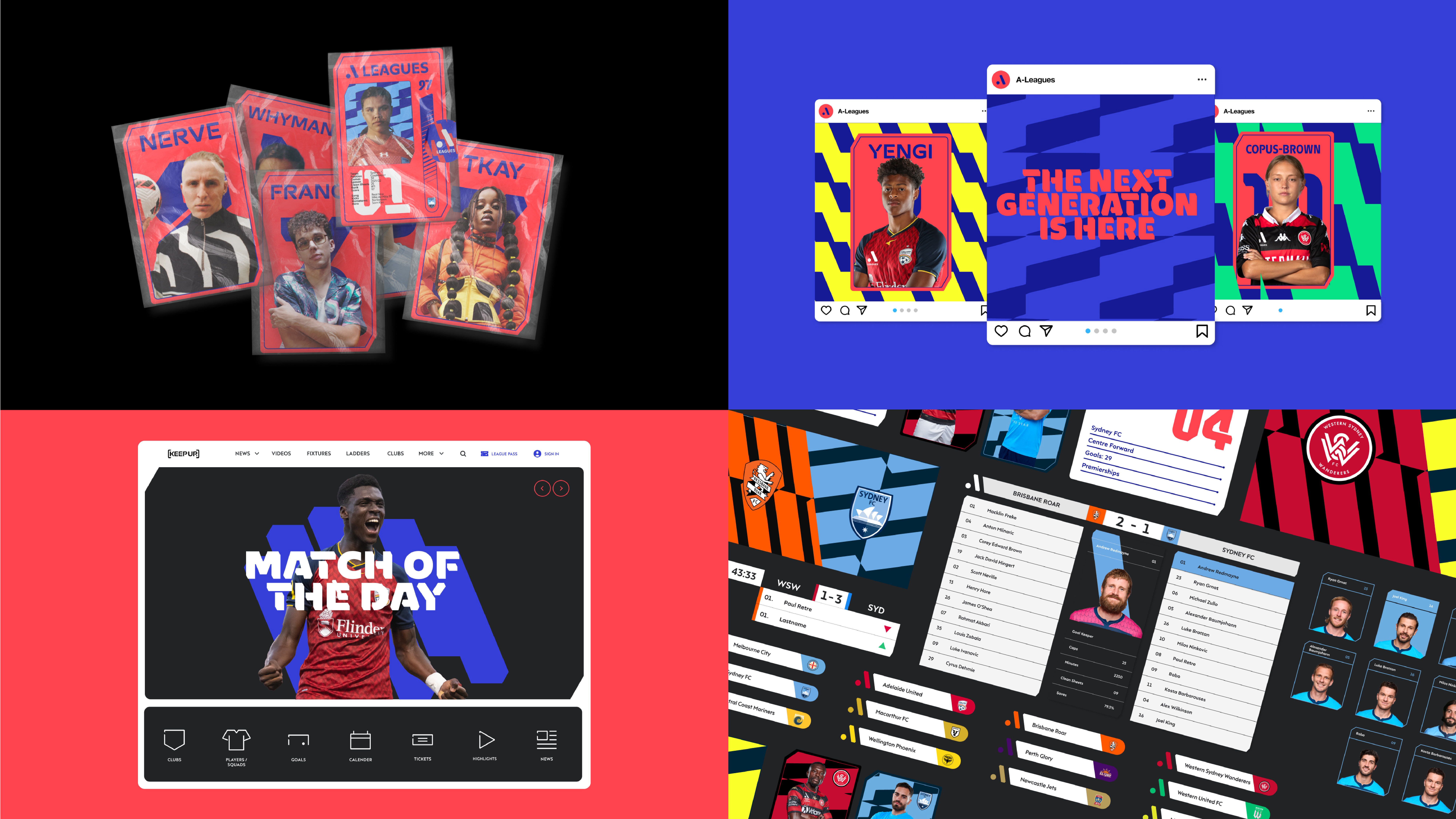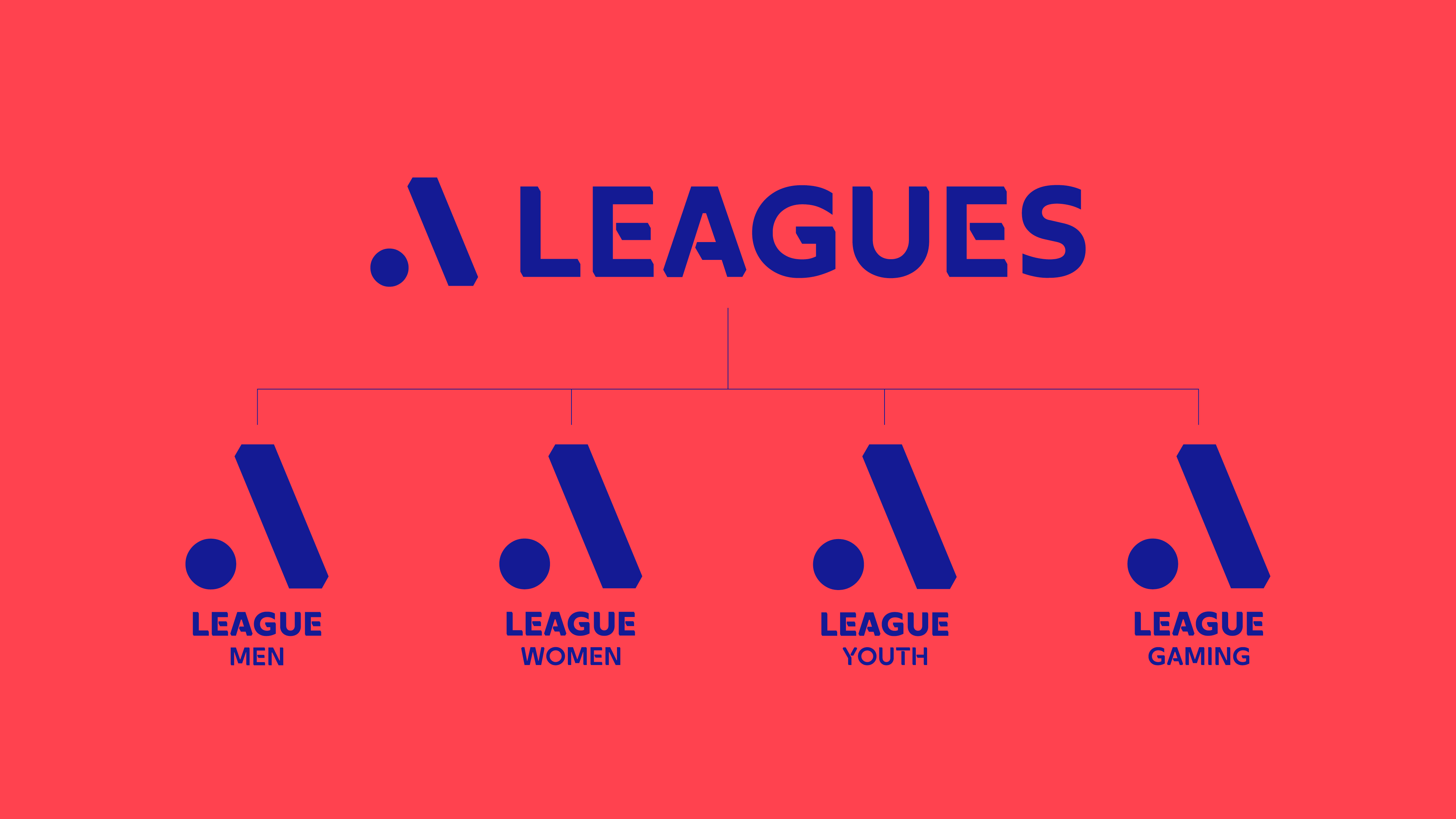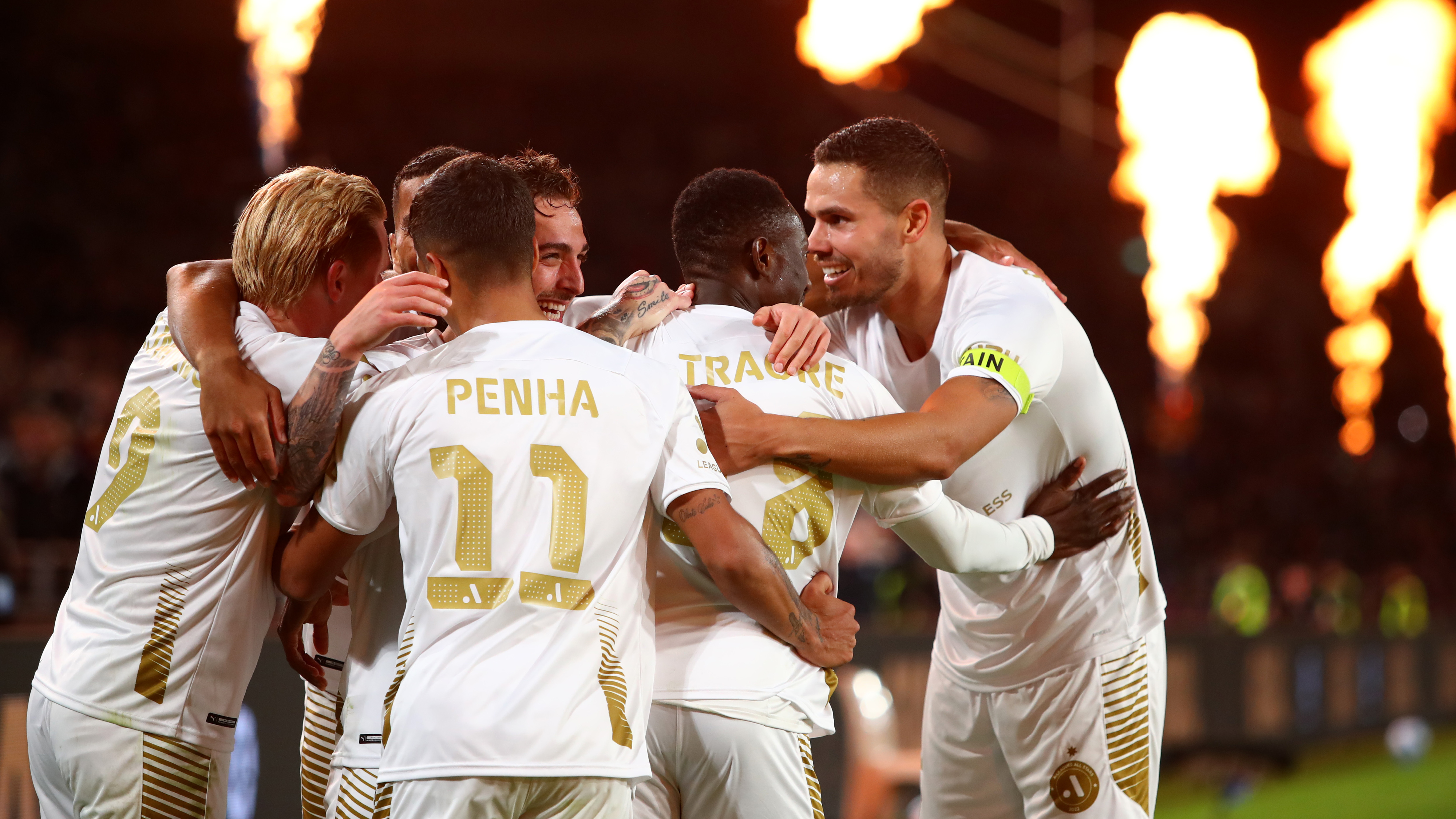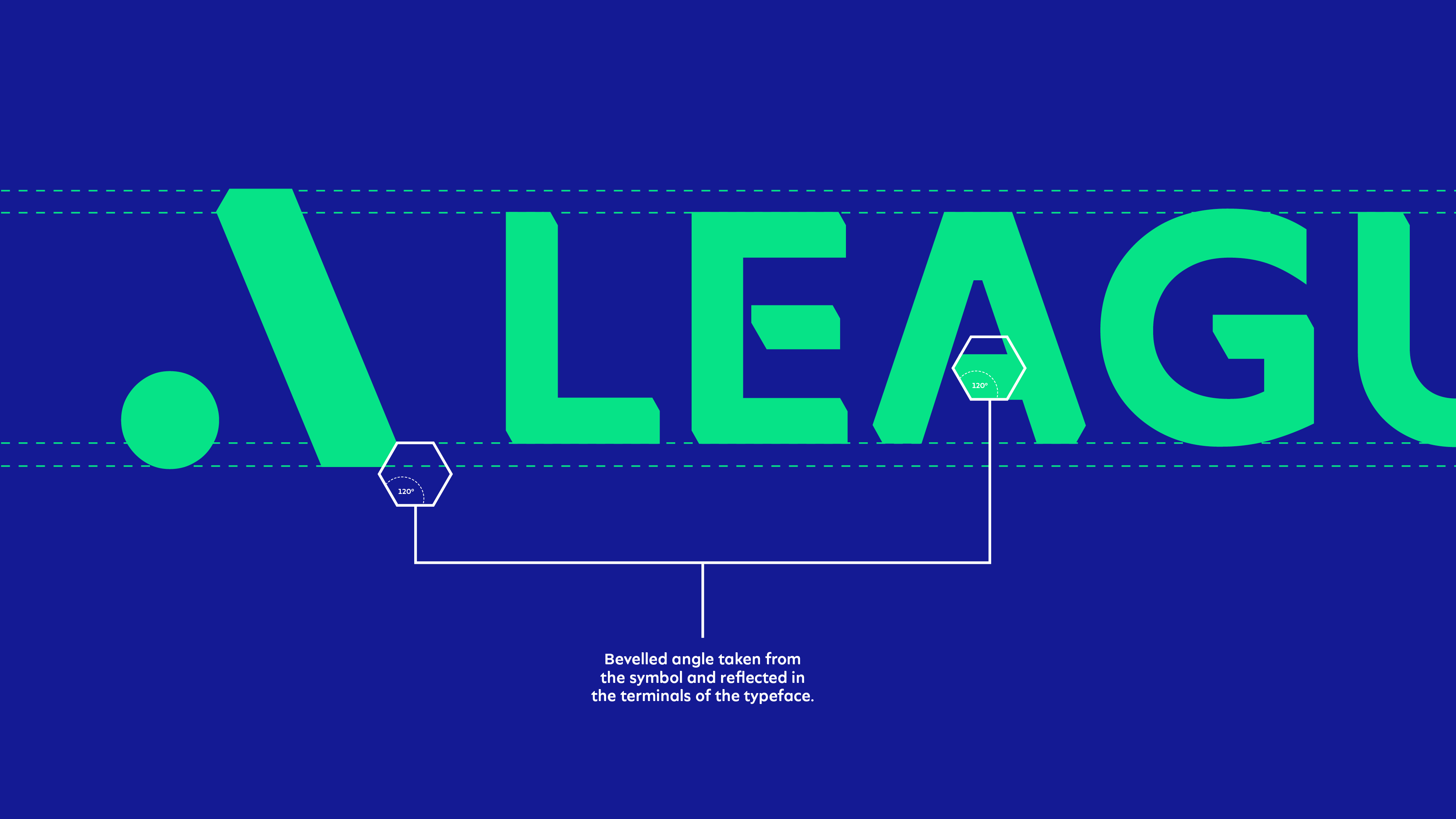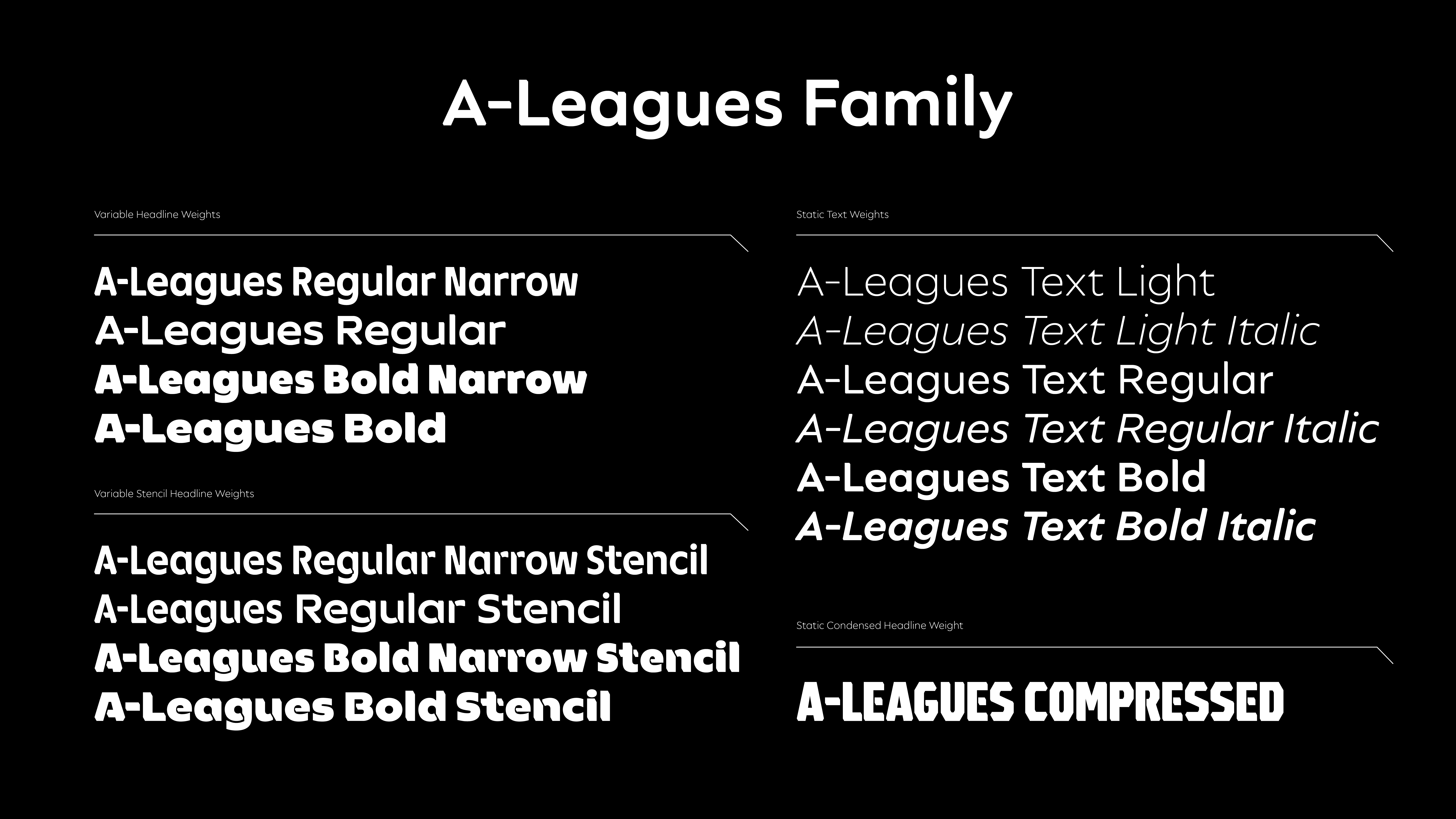
A-Leagues
Football in Australia is changing. Alongside R/GA Australia, we designed a suitably striking new font family for the innovative, all-inclusive A-Leagues.
Our ambition was to create a typeface that would act as an open invitation to all players, clubs and fans to play their own way. From home ground to playground, F37 delivered a type family that can flex both on and off the pitch, blending football and culture with a uniquely welcoming and passionate tone. F37’s knowledge for both football and typography made for an inspiring partnership that has amplified the A-Leagues values across Australia.
A-LEAGUES LOGO FAMILY
TYPE ANATOMY
Background
The A-Leagues represent the pinnacle of professional football in Australia. It’s the first league in the world to combine men's, women's, youth and e-sports competitions under one banner. It aims to make elite football the most popular sport in the country.
After the A-Leagues broke away from Football Australia in 2021, they were rebranded by R/GA Australia. As part of their box-fresh new kit, R/GA commissioned us to create custom lettering to match their new dynamic symbol.
Initially, we were asked to develop some type for the A-Leagues family of logos. However, the value of creating a full font family soon became apparent, so we put our boots on to create a hard-working and versatile typeface.
MERCHANDISE
A-LEAGUES HEADLINE STENCIL BOLD
Delivery
We used the 120° angle of the hexagon shape, often found on footballs and R/GA's new symbol as a starting point to create the A-Leagues font family. It’s a super font family with a wide variety of weights and styles.
Angular and dramatic, it looks gutsy and passionate in bold, yet beautiful and sophisticated in lighter weights. The small cuts and angled terminals play with your eyes, giving you the impression that the letters have been rendered in 3D. A-Leagues Text takes the core forms of the display styles and pairs them back as to not distract or render poorly at smaller sizes. This meant we gave the text style smaller bevels, looser spacing and a reduced x-height all to aid in legibility and readability.
We also created bespoke jersey numbers based on angularity and hexagonal shapes. In addition, the A-Leagues font family was supplied as a variable font, creating possibilities for interactive typographic animations such as reacting to crowd noise in stadiums. GOOOAL! Or for flexible typesetting, such as using its variable widths to counter the age-old issue of long or double-barrelled names having to be squeezed onto jerseys.
VARIABLE SHIRT NAMES & NUMBERS
MARKETING AND MEDIA
A-LEAGUES FONT FAMILY
BROCHURE
Names & Numbers